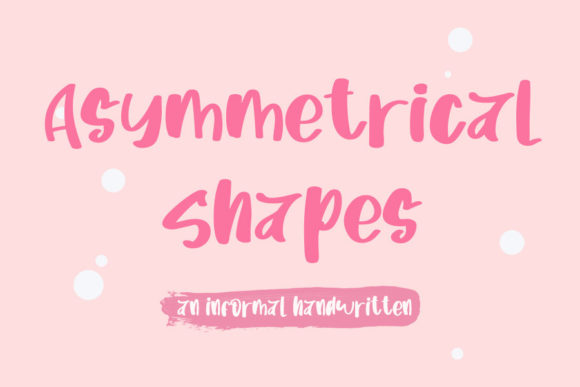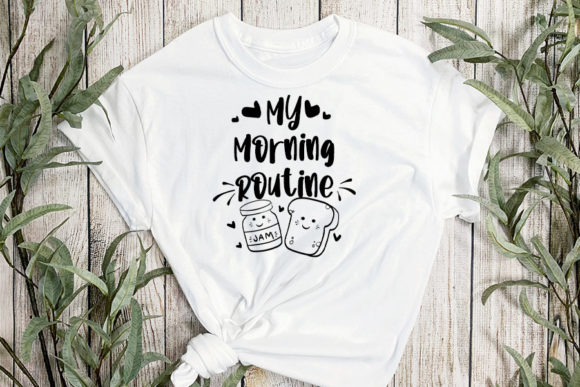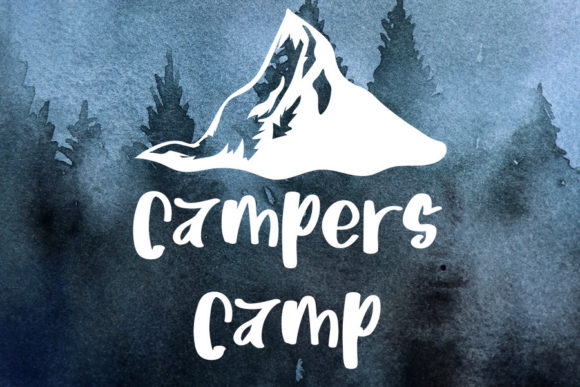
Asymetrical Shapes Font
About Asymetrical Shapes Font
Asymetrical Shapes is a casual and informal handwritten font. Its natural and unique style makes it incredibly fitting to a large pool of designs. The only limit is your imagination!